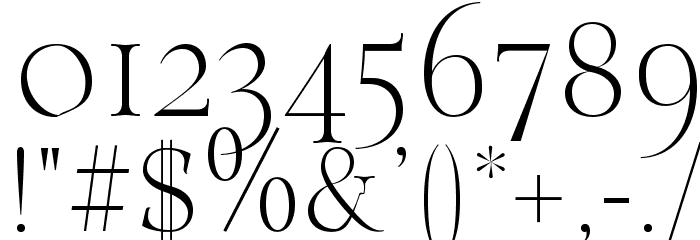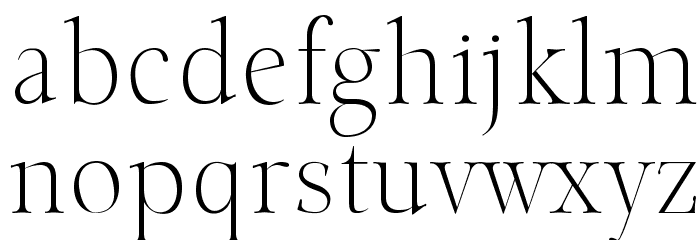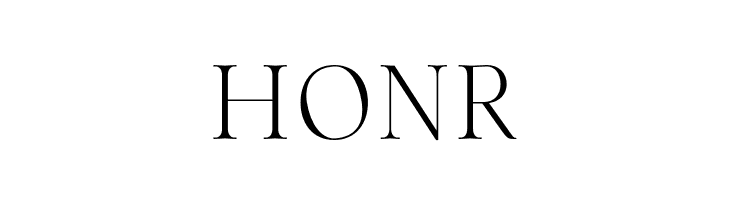
Classy Coiffeur Light Font
Classy Coiffeur Light Description
This elegant typeface features a refined and sophisticated design, characterized by its thin, graceful strokes and high contrast between thick and thin lines. The serifs are delicately crafted, adding a touch of classic elegance to each character. The uppercase letters are stately and commanding, while the lowercase letters maintain a harmonious flow. The numerals are distinct and clear, ensuring readability. The special characters are thoughtfully designed, maintaining the overall aesthetic of the font. This typeface exudes a sense of luxury and timelessness, making it suitable for high-end branding and editorial design.
An elegant, high-contrast serif typeface with refined, graceful strokes from Uncategorized fonts.
- Proposed Projects: Ideal for luxury branding, editorial design, wedding invitations, and high-end packaging.
- Overall Style: Classic
- Use Case: Headlines, Logos, Editorial design